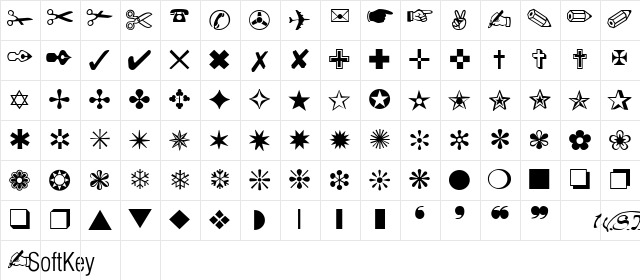
Dingbats1 Regular Free Font
Dingbats1 Regular
Design Context for Dingbats1
Dingbats1 is a composed and adaptable typeface that performs quietly and consistently across a wide range of design contexts.